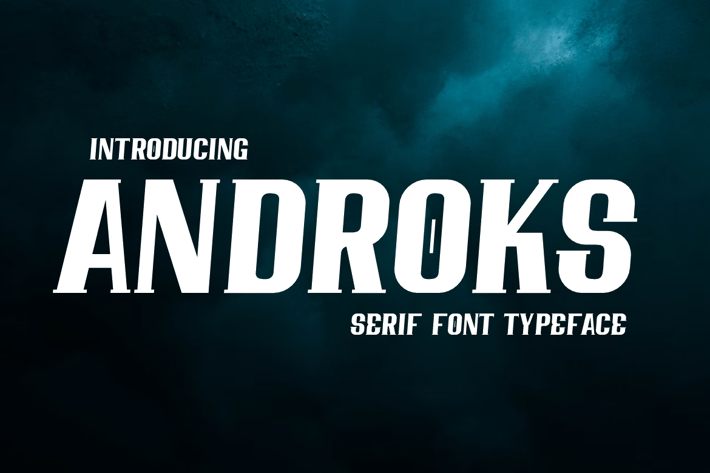
Androks - Serif Font
Androks - Serif Font Font is unique . Ready to use for your design like labeling, movie sceen, poster, movie title, gigs, album covers, logos, and much more.